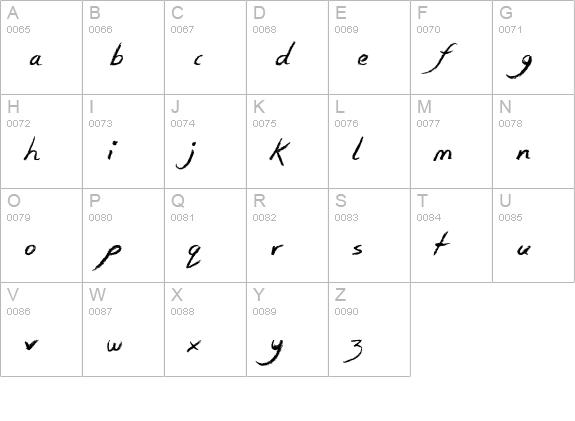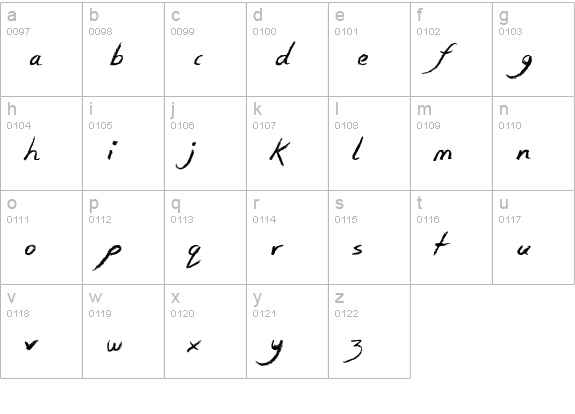
Graffiti Crayon Font Details
Introducing the captivating Graffiti Crayon font, a vibrant and expressive typeface that brings the dynamic energy of street art straight to your designs. Whether you're looking to add a touch of urban flair or make a bold statement, this font is guaranteed to leave a lasting impression. Designed with a graffiti-inspired aesthetic, Graffiti Crayon showcases the raw creativity and rebellious spirit that graffiti art is known for. Each letter is meticulously hand-drawn, capturing the spontaneous strokes and fluid lines that give this font its distinctive character. Graffiti Crayon is not just a font, it's a tool for self-expression. With its edgy and unconventional style, it's perfect for projects that demand attention and evoke a sense of urban authenticity. From posters and album covers to streetwear branding and social media graphics, this font adds an instant cool factor to any design. The best part? Graffiti Crayon is completely free! Available for download at FontsMarket.com, you can now unleash your creativity without breaking the bank. Whether you're a professional designer or an aspiring artist, this font offers endless possibilities to bring your vision to life. So why wait? Download Graffiti Crayon today and let your designs speak volumes. Embrace the spirit of graffiti art and make a statement that is uniquely yours. With this free font, the only limit is your imagination.